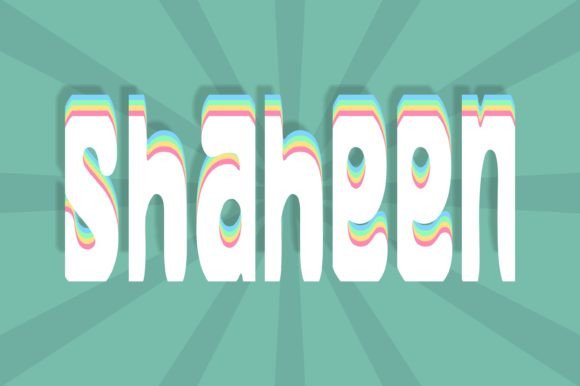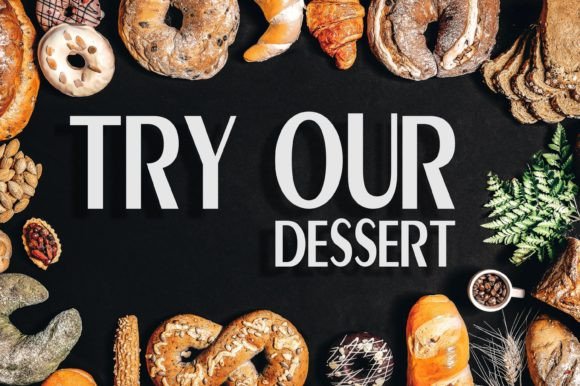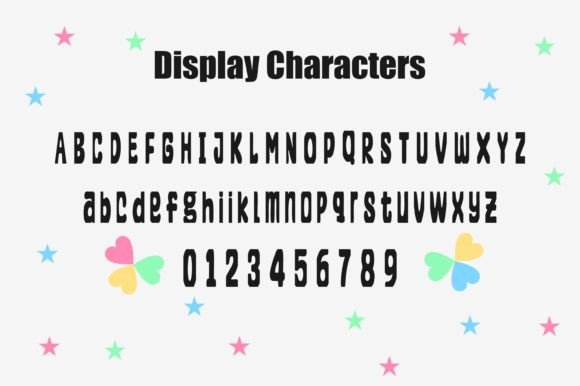
Introduction to Shaheen Font
Shaheen is a beautiful display font perfect for magazines and crafts.
Key Features of Shaheen Font
Why Choose Shaheen Font?